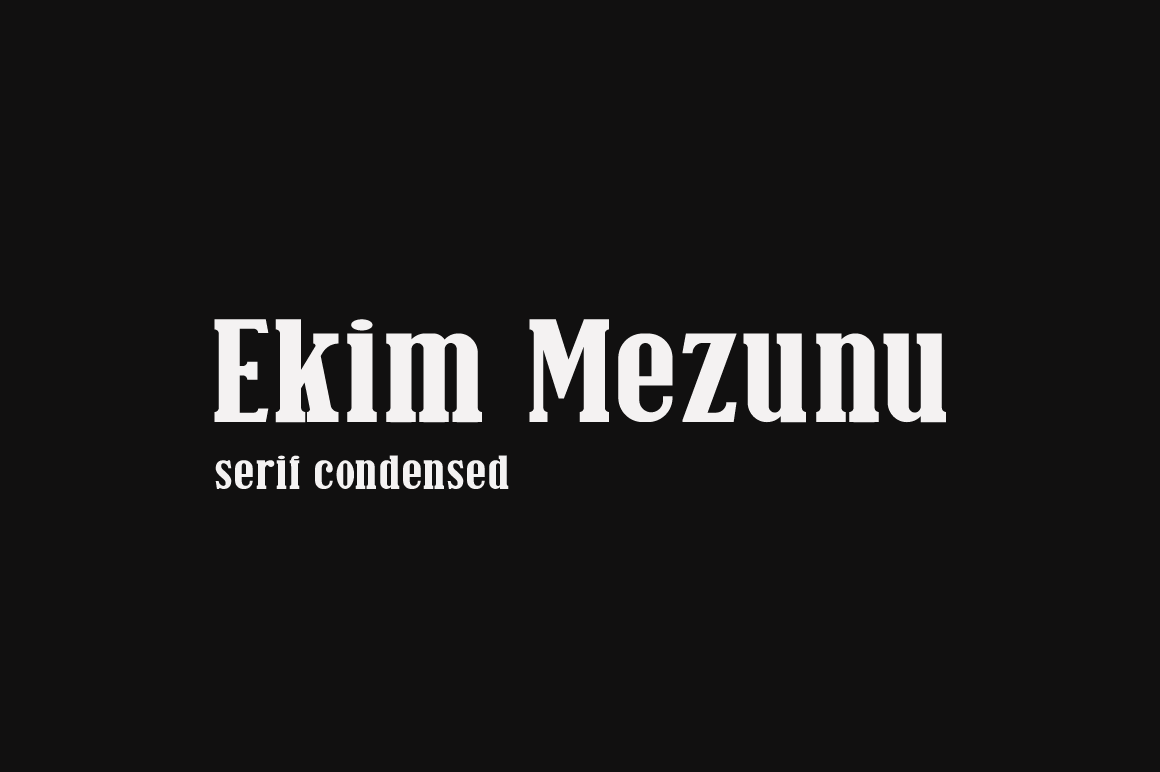
Ekim Mezunu Serif Font
Ekim Mezunu Font is a Serif typeface that is suitable both for a pleasant experience in reading texts as well as for striking headlines and for subtext applications with the heavier weights. Very suitable to use logos, posters, covers, main packaging, t-shirts, business cards, wedding cards, and more.